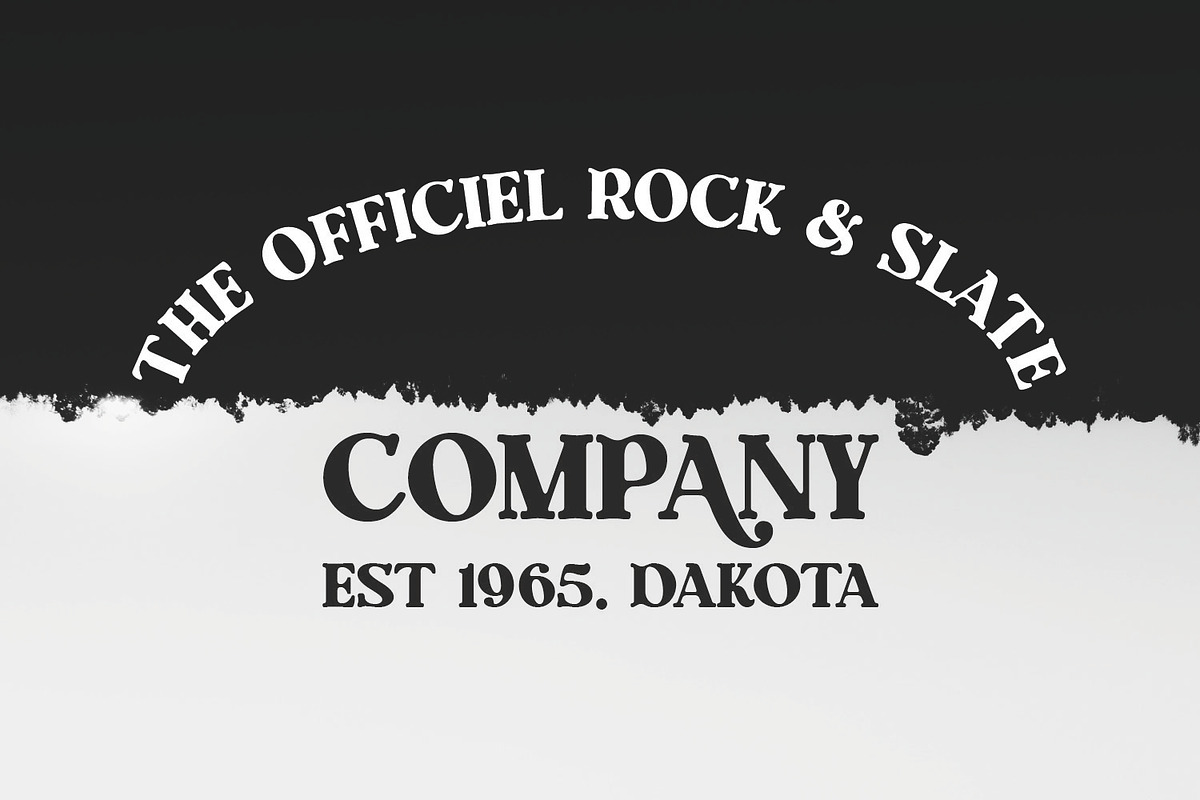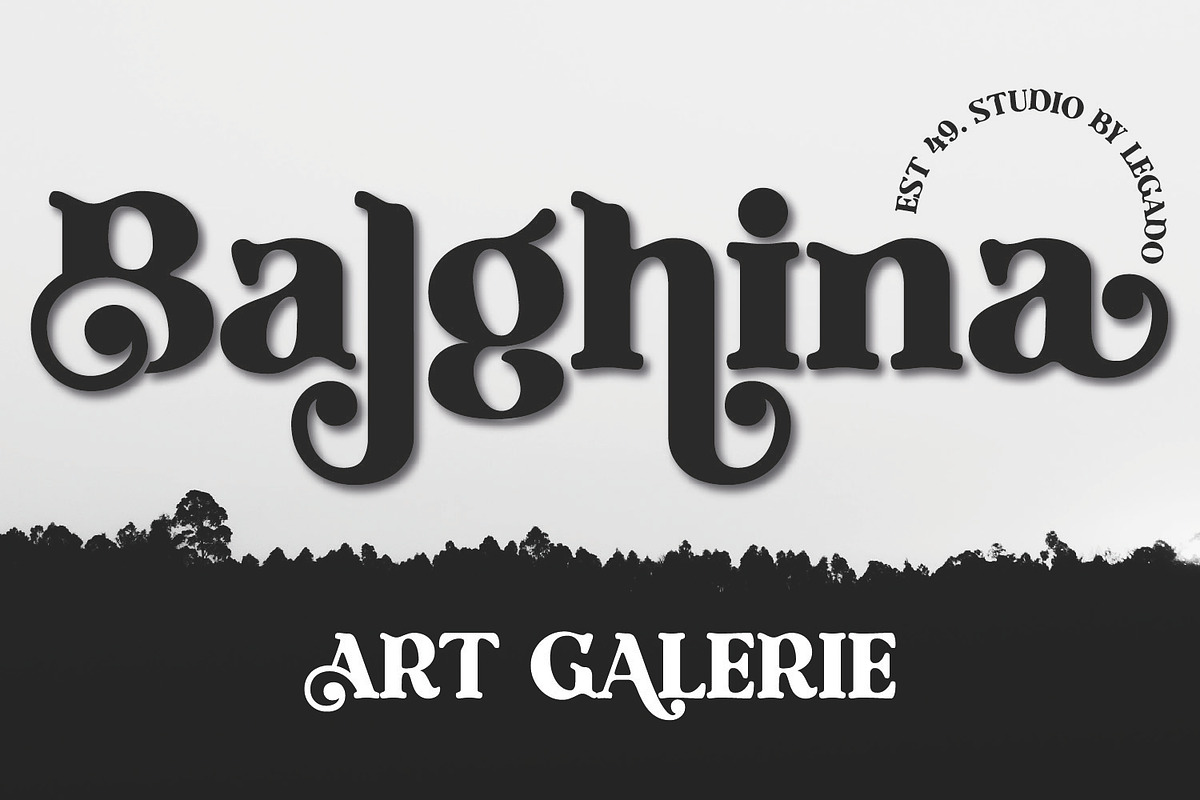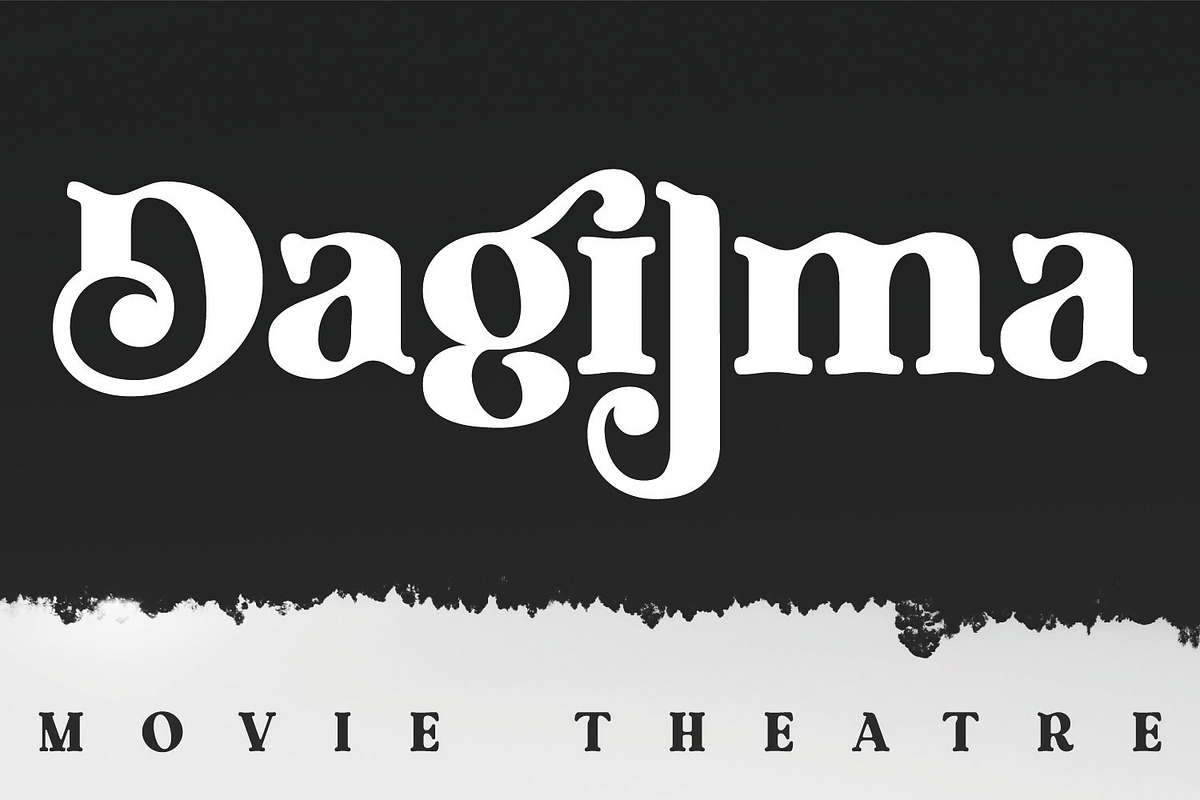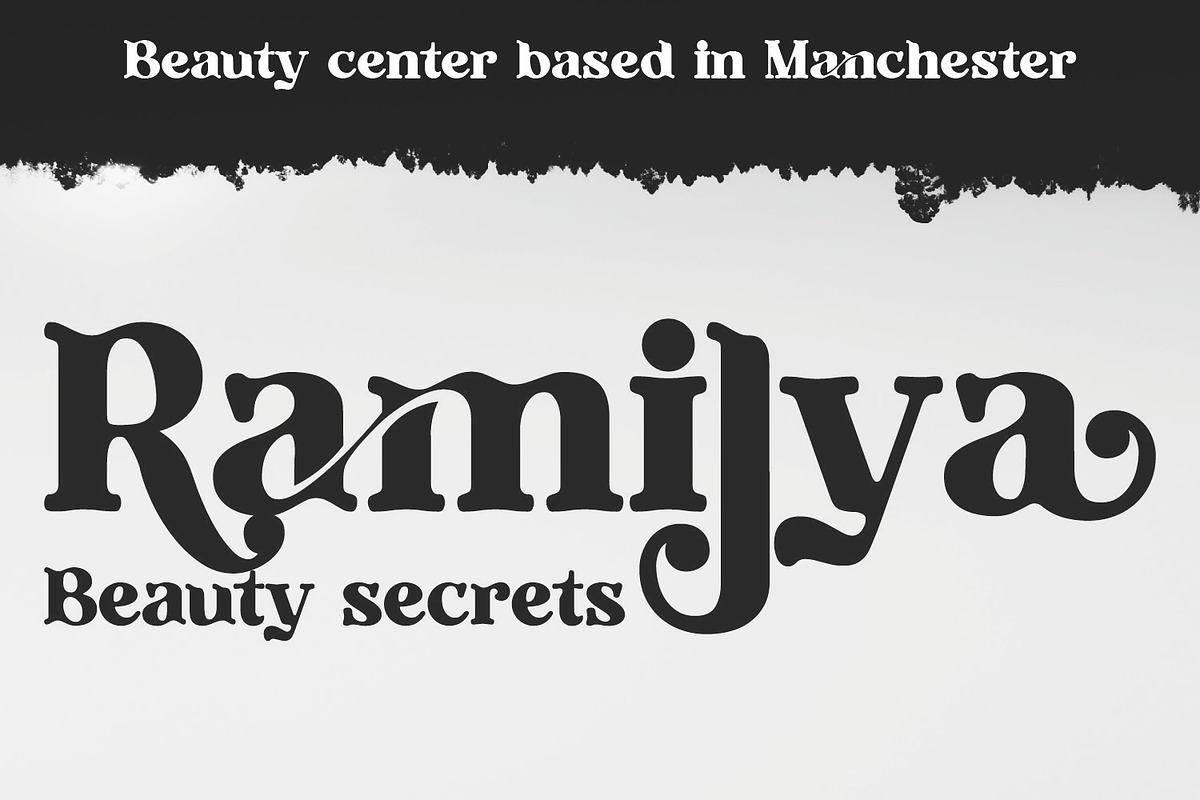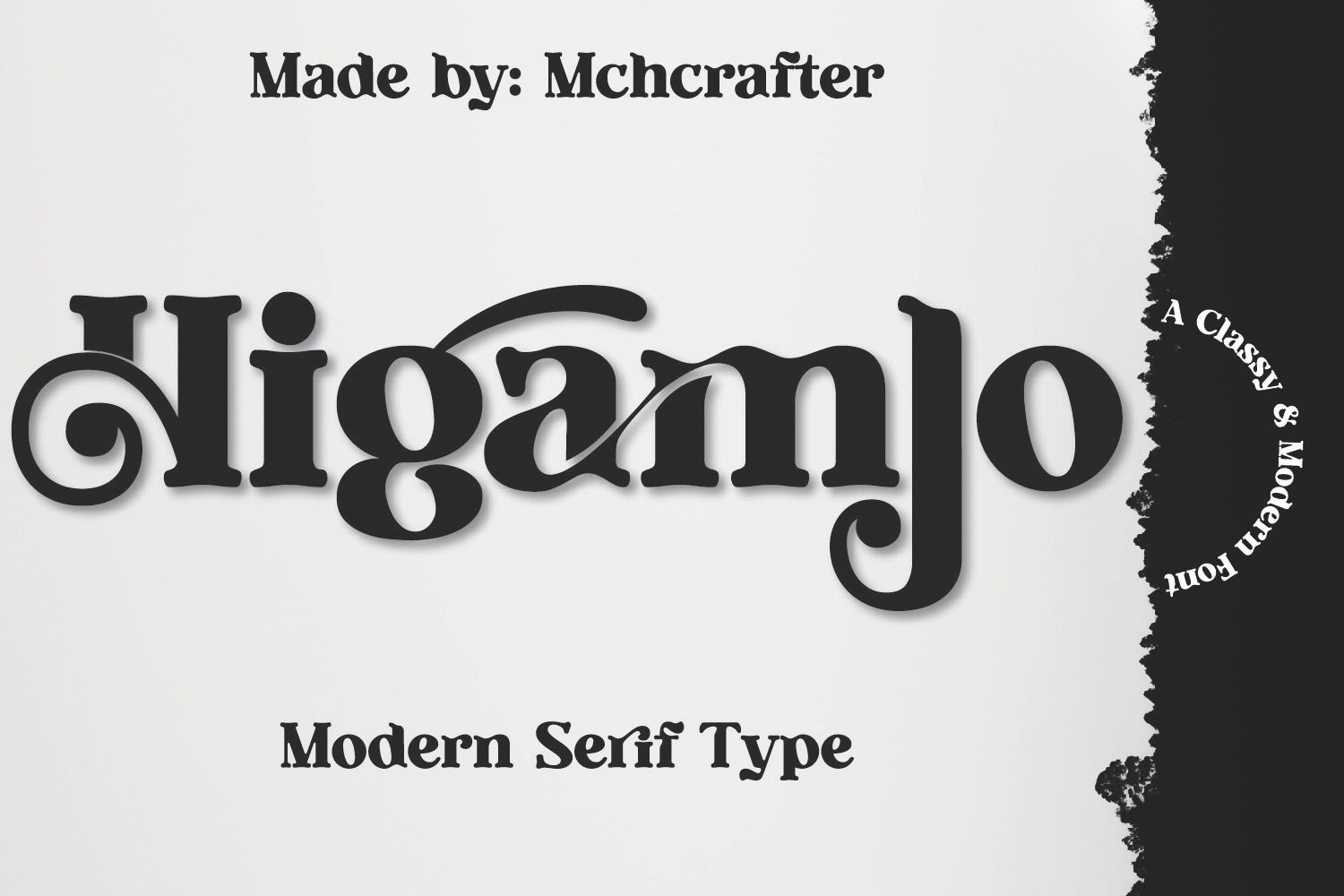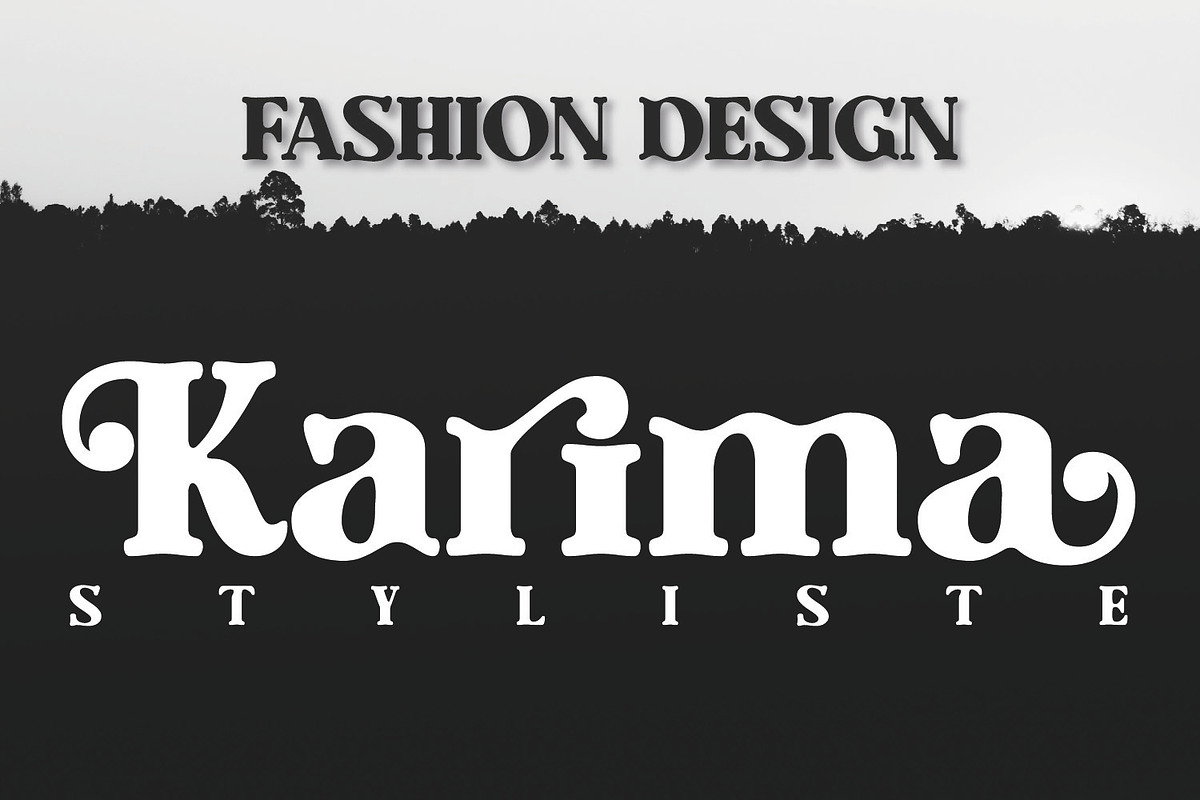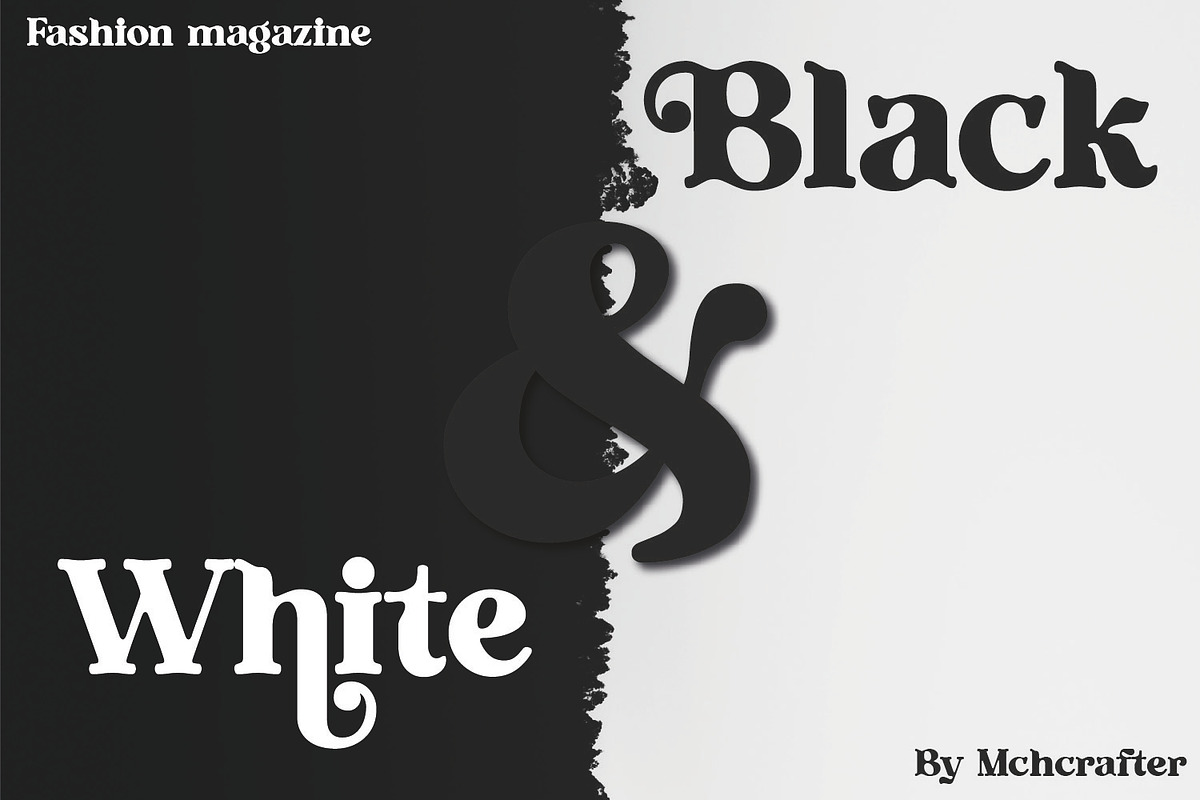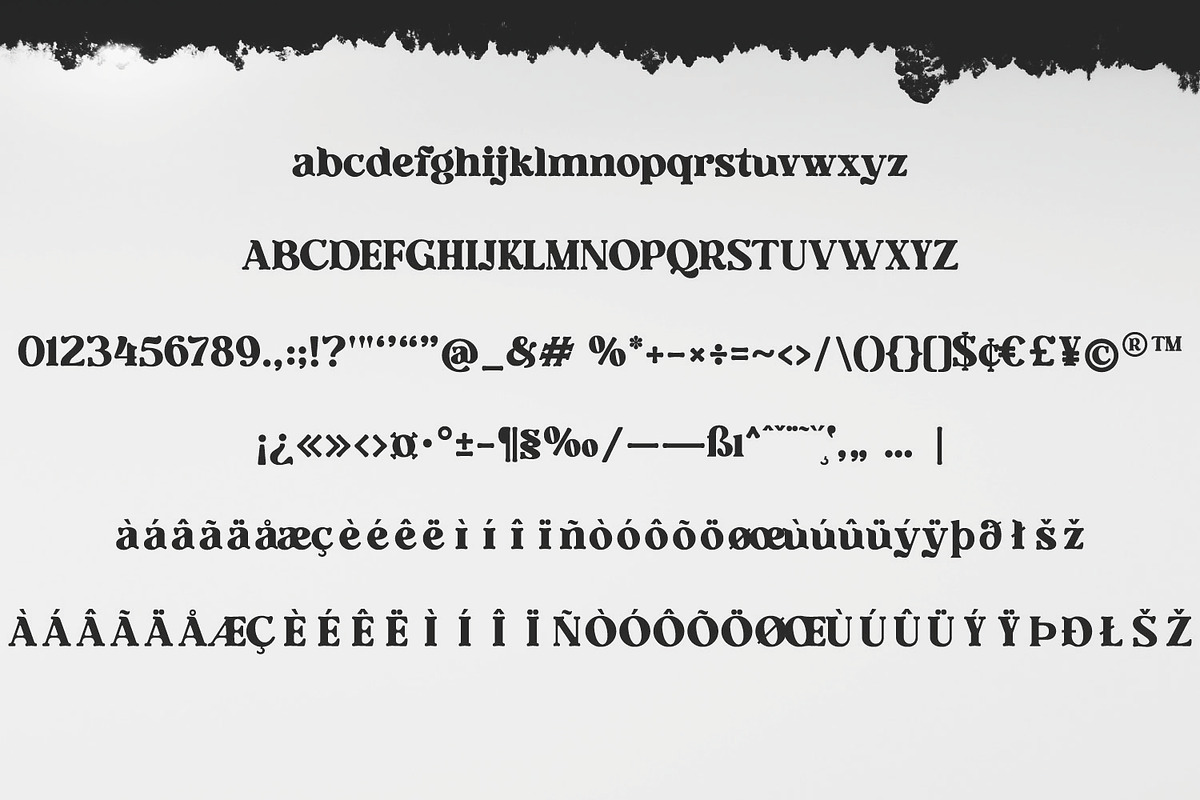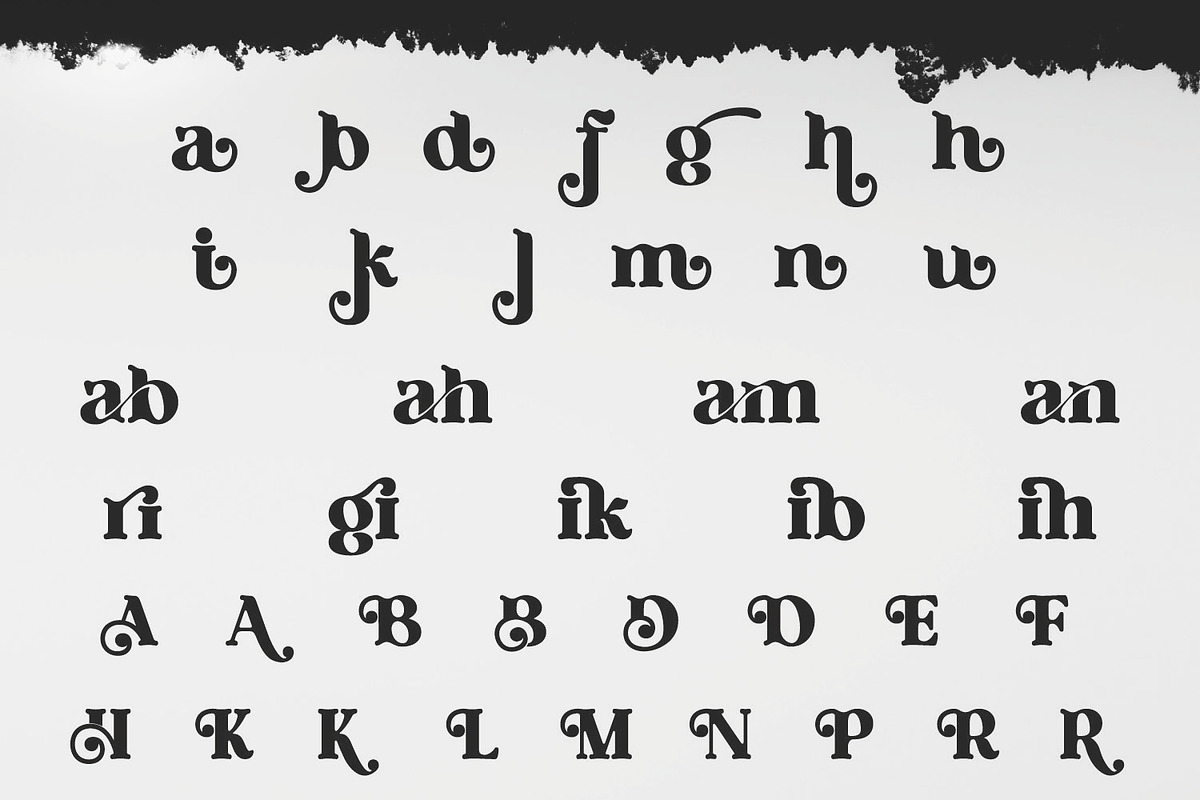
Higamlo | Modern Serif Typeface
Introducing Higamlo, a modern serif typeface perfect for adding elegance and sophistication to your designs. With clean lines and stylish curves, Higamlo is ideal for branding, editorial projects, logos, packaging, and more. Its versatility makes it a must-have for any designer's toolkit. Higamlo comes in multiple weights and includes a full set of uppercase and lowercase letters, numbers, and punctuation. Plus, it's easy to use with any software or design program. Buy Higamlo today and take your designs to the next level with this timeless and beautiful serif typeface.
Higamlo font includes:
- All uppercase & lowercase letters
- All numbers 0-9 & Punctuation
- Multiligual Letters